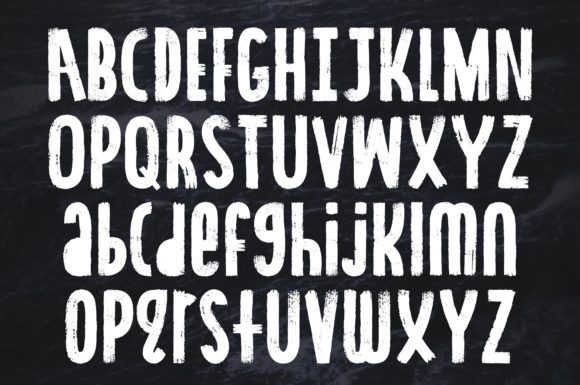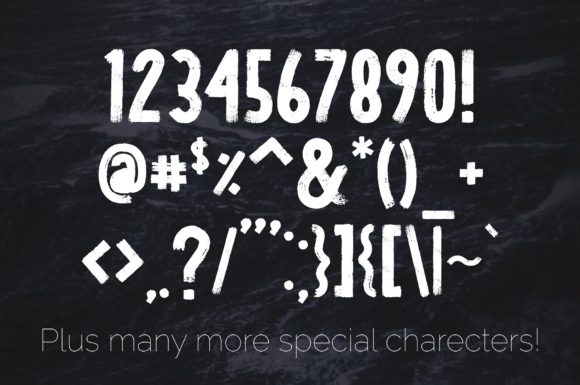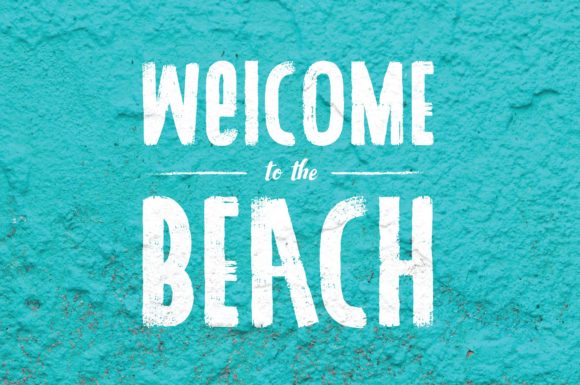
Introduction to Ocean Six Font
As a designer, there’s nothing quite like the thrill of stumbling upon a unique and high-quality design resource. For me, it’s like discovering a hidden treasure that instantly sparks a creative project. I remember the moment I laid eyes on the Ocean Six Font – its bold, handmade look was like a breath of fresh air in a sea of generic typography.
The Ocean Six Font is a true gem, crafted with love and attention to detail. Scanned and vectorized from acrylic brush strokes, this font has a distinct, vintage feel that’s simply irresistible. With a transparent background, it’s perfect for designers looking to add a touch of sophistication to their designs. And the best part? It’s available for free download, making it an invaluable addition to any designer’s toolkit.
Key Features of Ocean Six Font
- High-quality design resource ideal for creative projects requiring a unique, ocean-inspired aesthetic.
- Unique, hand-drawn design elements that add a touch of personality to any creative project or design.
- Designed to be versatile, suitable for use in a wide range of creative applications, from digital art to print materials.
Honest Review: Ocean Six Font
As a designer, I’m always on the lookout for high-quality design resources to elevate my creative projects. The Ocean Six Font caught my attention, and I’m excited to share my thoughts on this free download.
- The Ocean Six Font is incredibly versatile, making it perfect for a wide range of design applications, from branding to digital products.
- The font’s modern and sleek design makes it a great addition to any creative project.
- The transparent background feature allows for seamless integration with any design element.
- The font may not be suitable for print designs, as it’s primarily designed for digital use.
- The free version may not include all the features and styles offered in the paid version.
Overall, I’m impressed with the Ocean Six Font. Its high quality and versatility make it a valuable addition to any designer’s toolkit. While it may have some limitations, it’s a great free download for those looking to enhance their creative projects.
Tips for Getting the Most Out of Ocean Six Font
To maximize the impact of Ocean Six Font, use it sparingly and strategically in your design. Combine it with other design elements to create a visually appealing and cohesive look.
Ocean Six Font is commonly used for creative projects such as logo design, infographics, and social media graphics. Its high-quality and transparent background make it an ideal choice for design resources and visual elements.